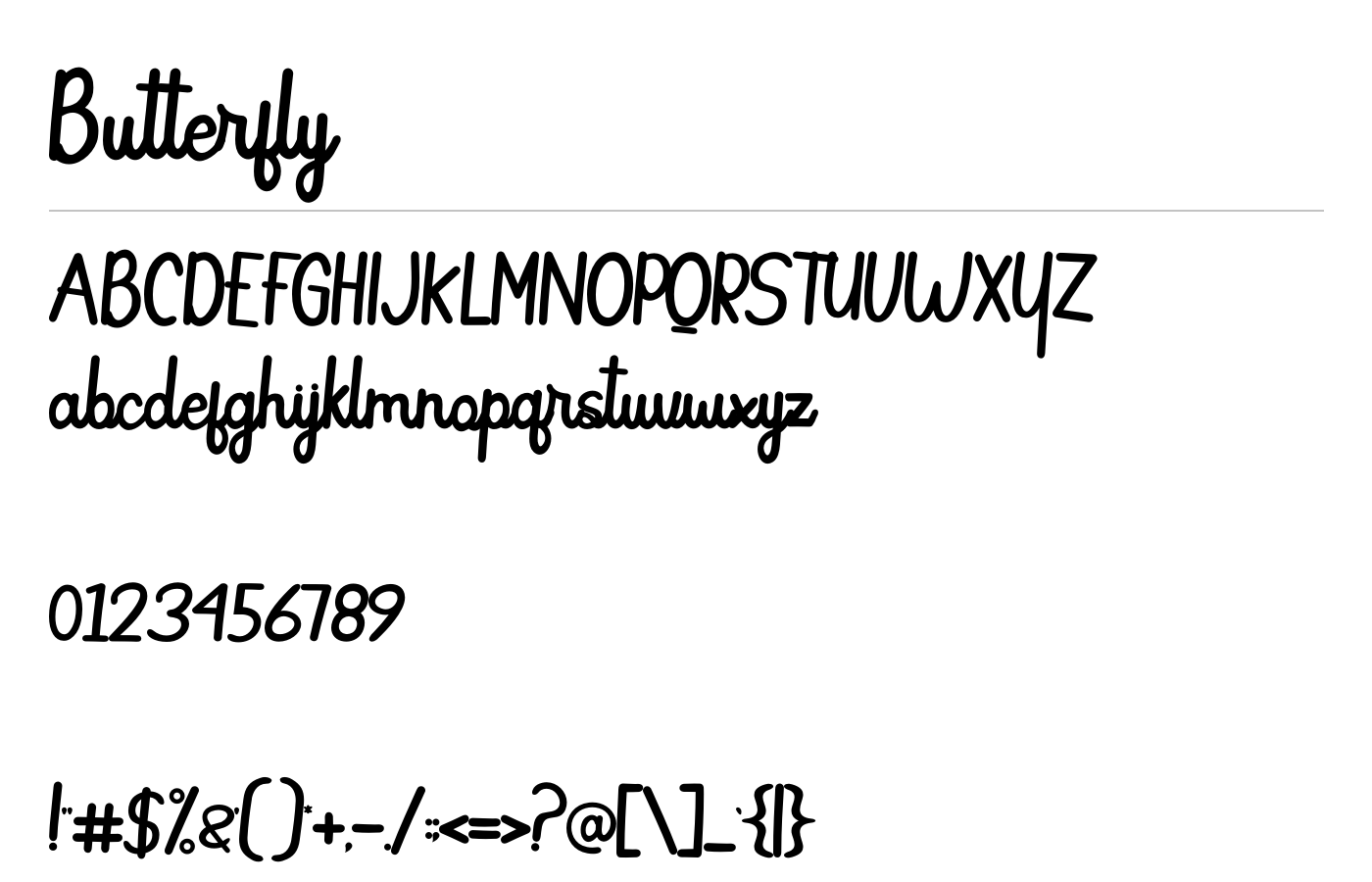
Butterfly Font is a playful and casual script-style typeface with a friendly, hand-drawn feel. Its smooth, slightly condensed letters and consistent stroke weight give it a warm, approachable personality, making it ideal for creative branding, informal invitations, and fun editorial projects. This font works best in headlines and short texts where a charming, personal touch is desired.
Butterfly Font
About Butterfly Font
| Font family | Butterfly Font |
| Designer | Skiiller studio - M Irfan Mahmudin - Nganjuk |